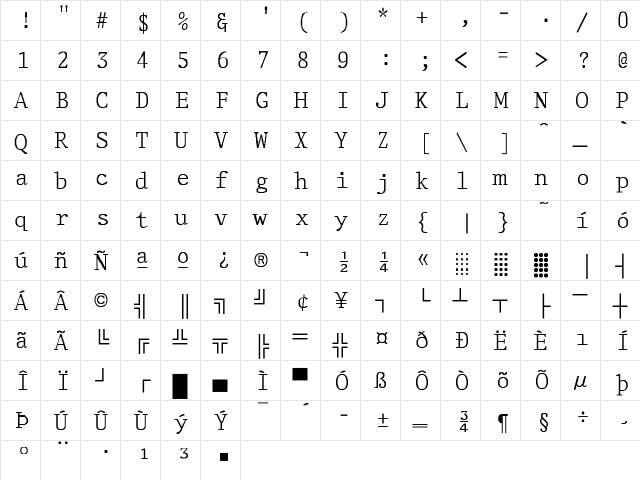
Delegate-Normal Regular
Design Context for Delegate-Normal Typeface
Delegate-Normal is a composed and adaptable typeface that performs quietly and consistently across a wide range of design contexts.